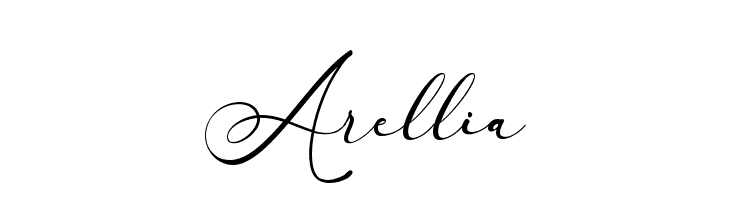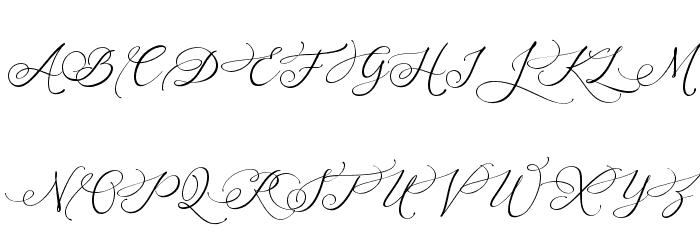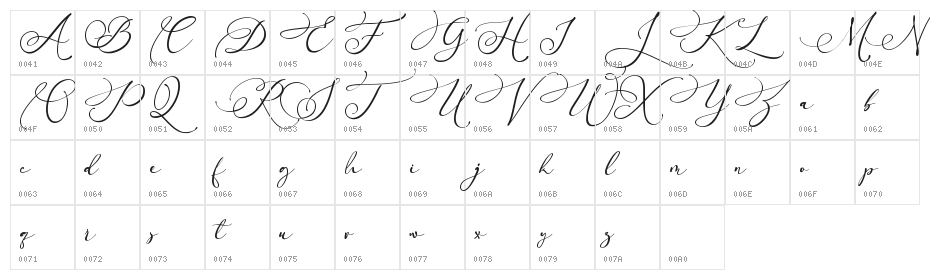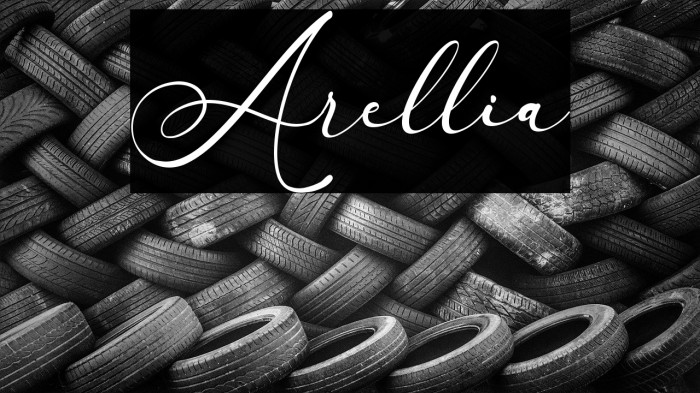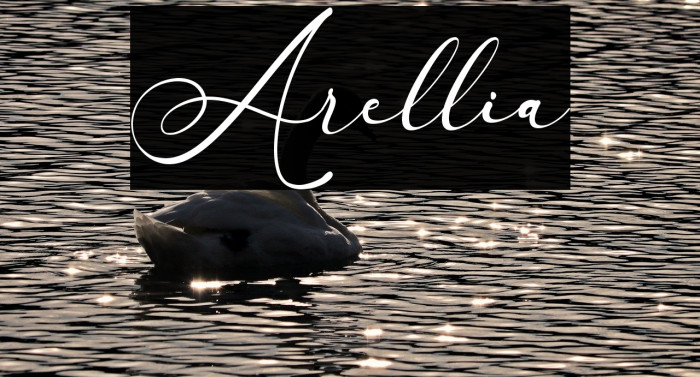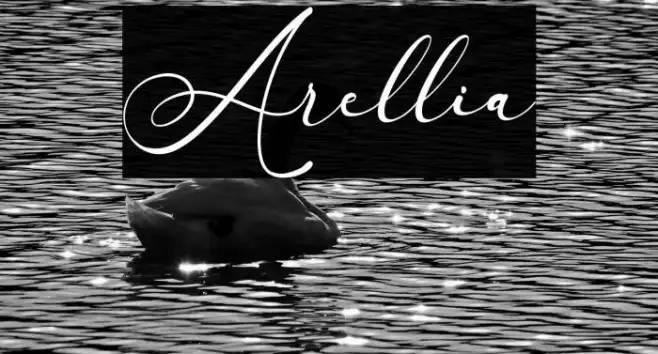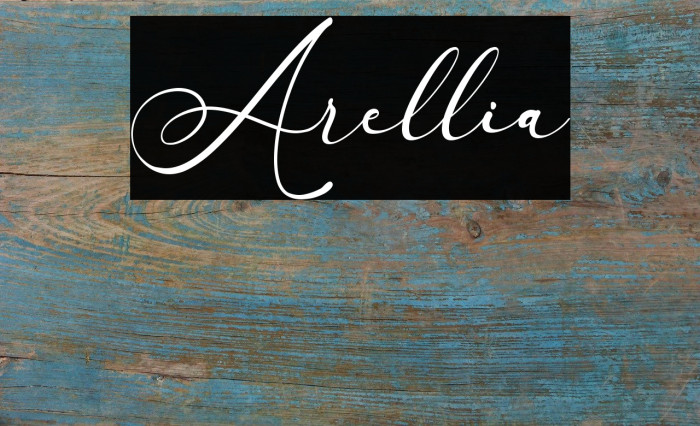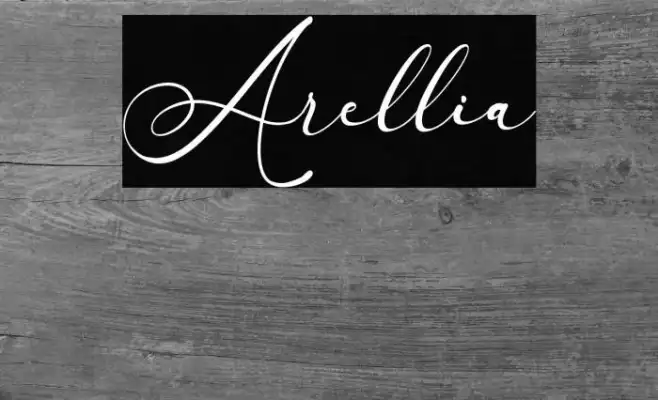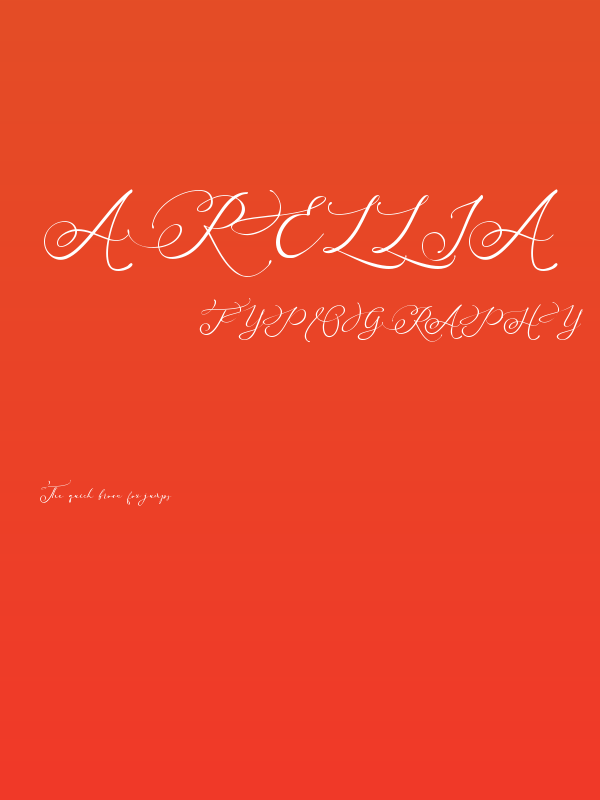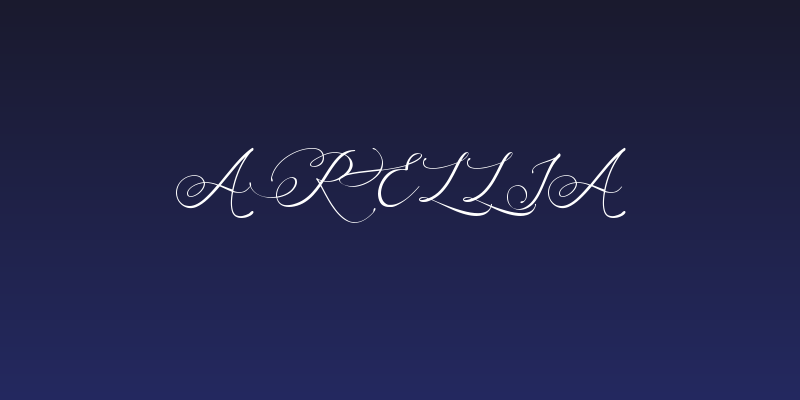
Arellia Font
Arellia Description
This elegant script font features a flowing, cursive style with intricate swashes and flourishes. The uppercase letters are particularly ornate, with extended loops and curves that give a sense of sophistication and grace. The lowercase letters maintain a more straightforward script style, providing a nice balance between readability and decorative flair. The font's overall appearance is both romantic and artistic, making it ideal for projects that require a touch of elegance and creativity. The characters are well-spaced, ensuring clarity even with the elaborate design elements.
| Proposed Projects | Ideal for wedding invitations, elegant branding, greeting cards, and artistic posters. |